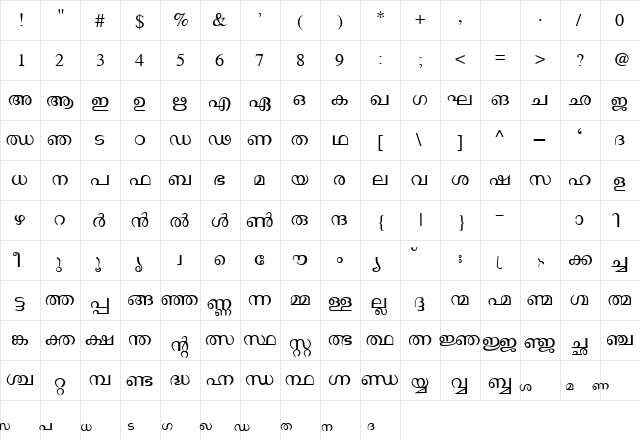
Thoolika Regular
Design Context for Thoolika Typeface
Thoolika is a composed and adaptable typeface that performs quietly and consistently across a wide range of design contexts.